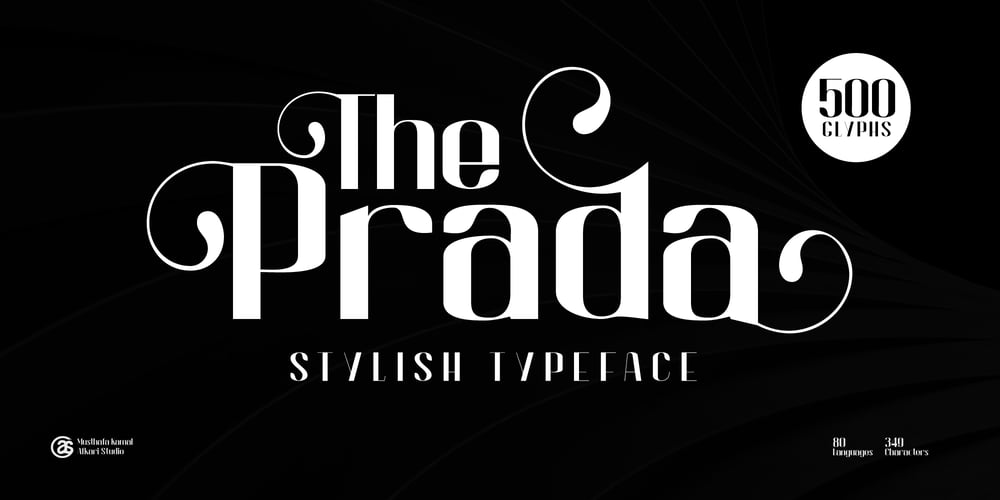
The Prada Font Family was designed by Musthafa Kamal Emje and published by Afkari Studio. The Prada contains 1 styles and family package options. The Prada – Modern Stylish Sans Serif FontThe Prada is a Modern Stylish Sans Serif Font. This font pairs well with modern san serifs and stands strongly on its own beauty alternates characters and stylish ligatures that make your design more conceptual.The Prada Modern Stylish Sans Serif Font is flexible for many styles of graphic design perfect for logo, headline, magazine, body text, quotes, and more.Features;- Uppercase, Lowercase, Number, and Punctuation- Special alternates and ligatures- Special Stylish Set for Uppercase & Lowercase- Works on PC & Mac- Simple installations- Accessible in Adobe Illustrator, Adobe Photoshop, Adobe InDesign, even work on Microsoft Word- Fully accessible without additional design software.- Mültîlíñgúãl Sùppört for; ä ö ü Ä Ö Ü ß ¿ ¡ etc.Hope you enjoy our font and this font is useful for your projects!